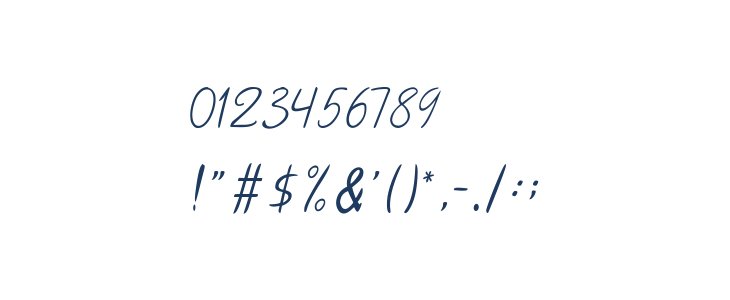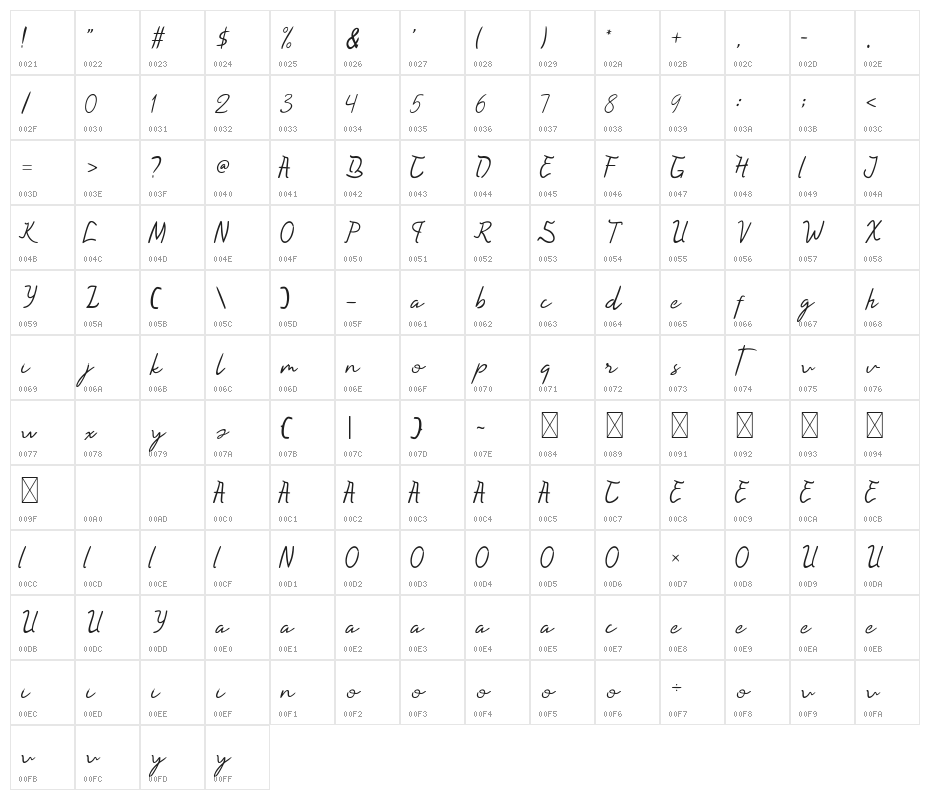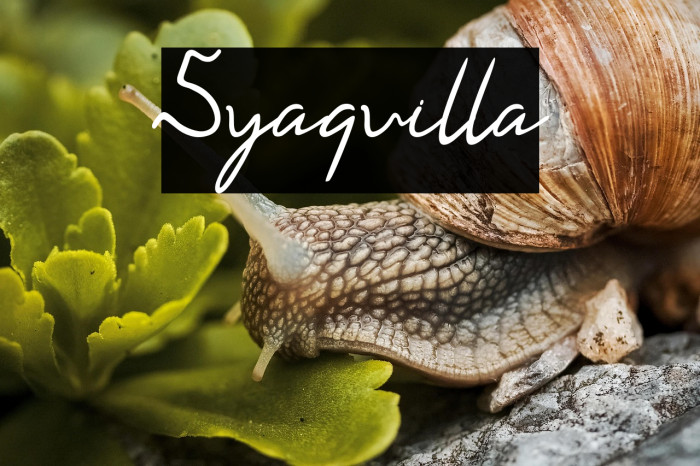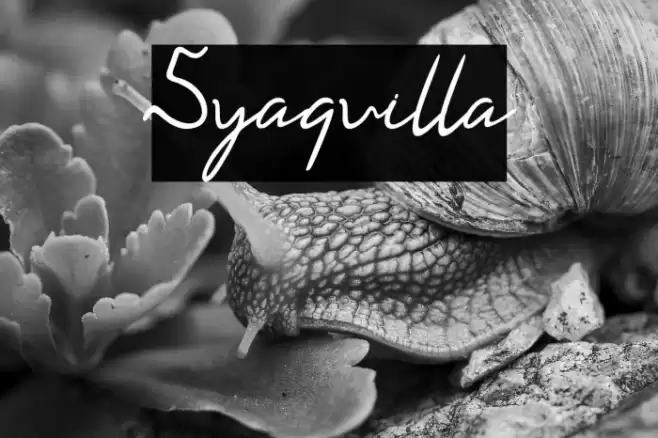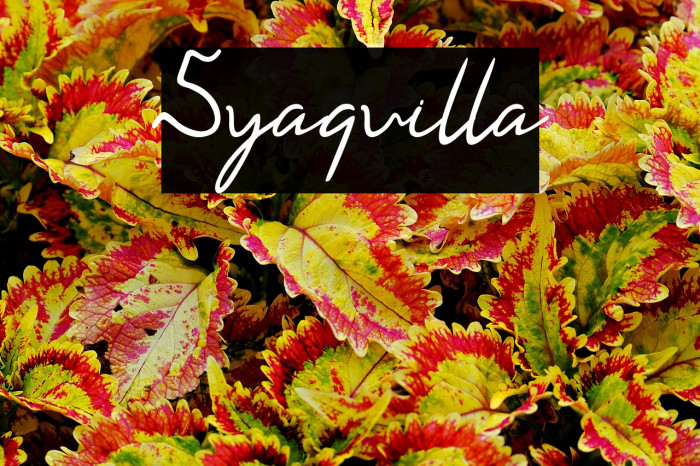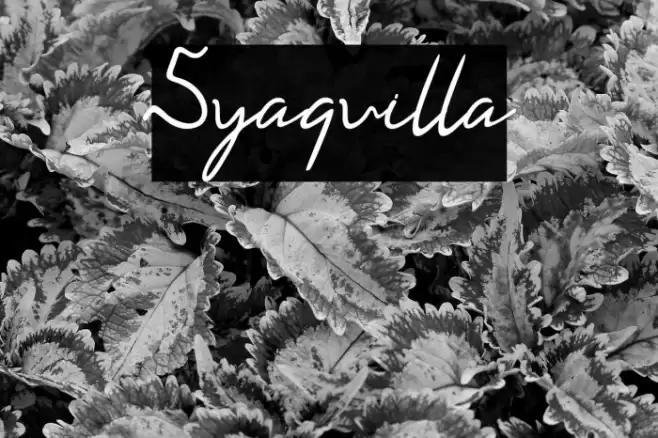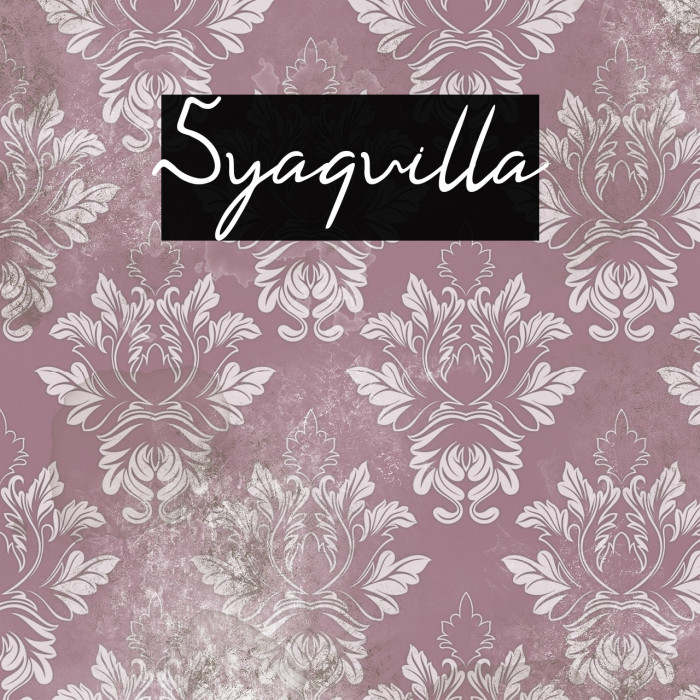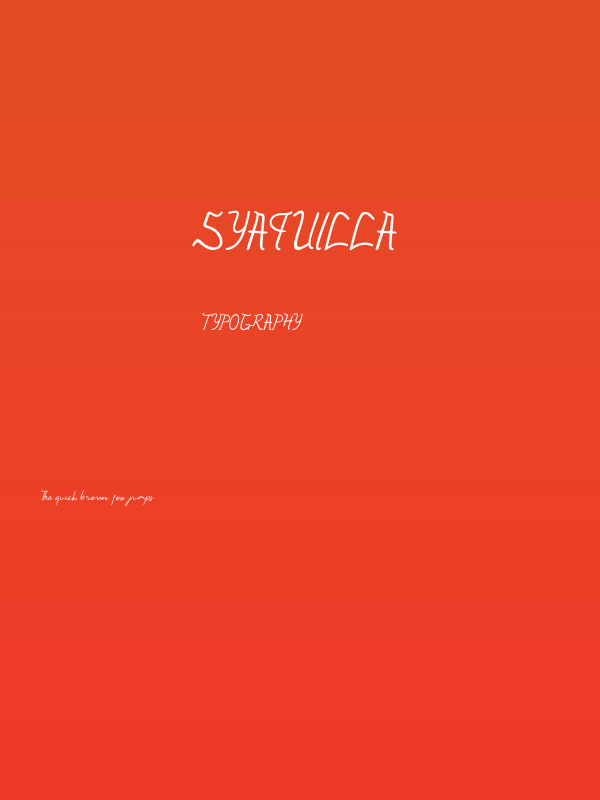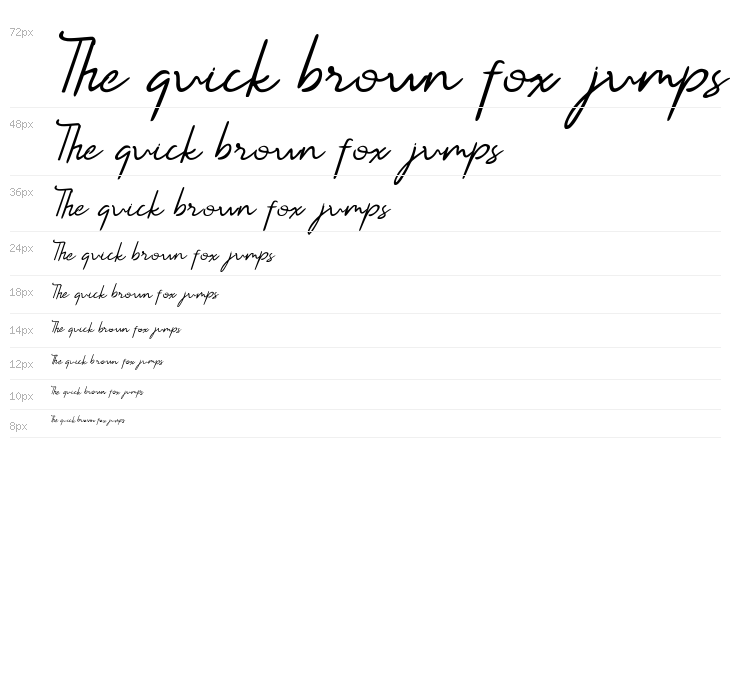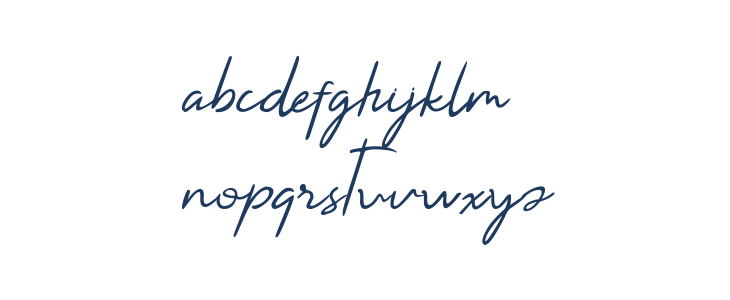
Syaquilla Font
Syaquilla Description
This font exhibits a fluid and elegant script style, characterized by its smooth, flowing lines and cursive nature. The uppercase letters are slightly more structured, maintaining a consistent height with gentle curves, while the lowercase letters are more freeform, adding a touch of whimsy and personality. The numerals are clear and legible, maintaining the same fluidity as the letters. Special characters are well-integrated, matching the overall aesthetic of the font. This font is ideal for projects that require a personal touch, such as invitations, greeting cards, and branding materials. Its handwritten style conveys warmth and creativity, making it suitable for both formal and informal contexts.
| Use Case | Headlines, Invitations, Branding |
| Proposed Projects | Ideal for invitations, greeting cards, branding, and creative projects. |